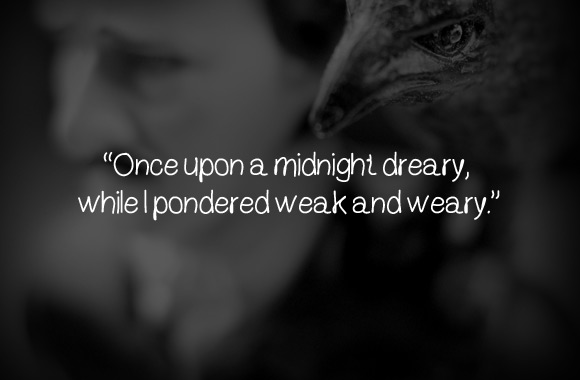
Grux is a hand written web font. The characters are clean and each written with a continuous line. The font is readable even at smaller sizes. HTML and CSS examples included.